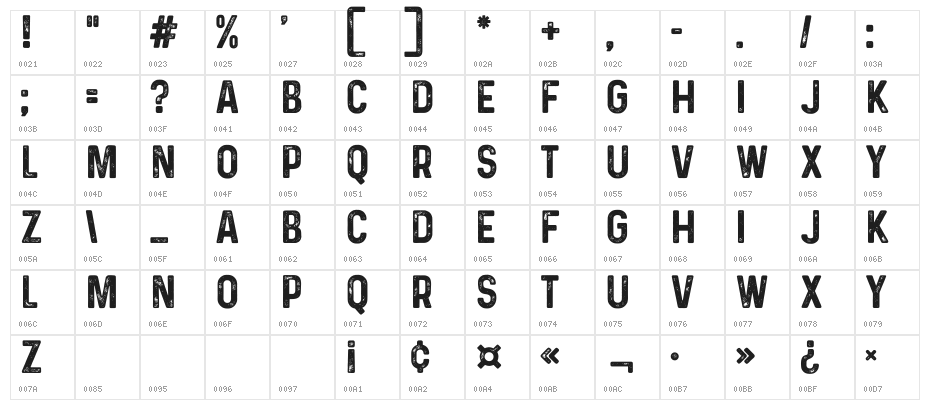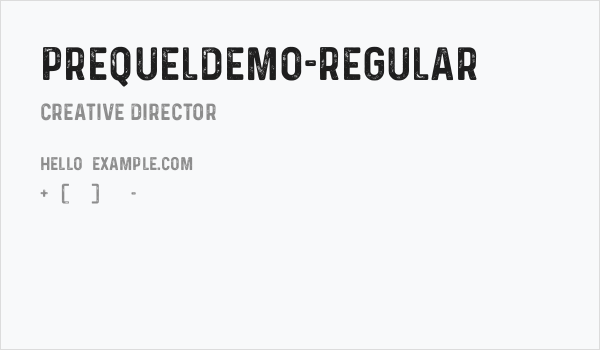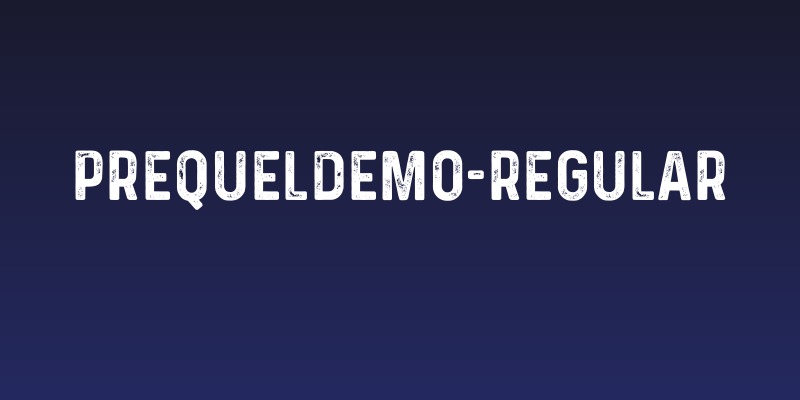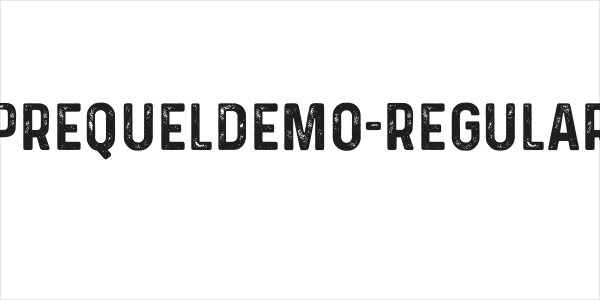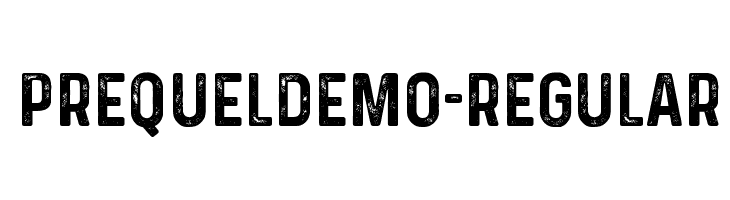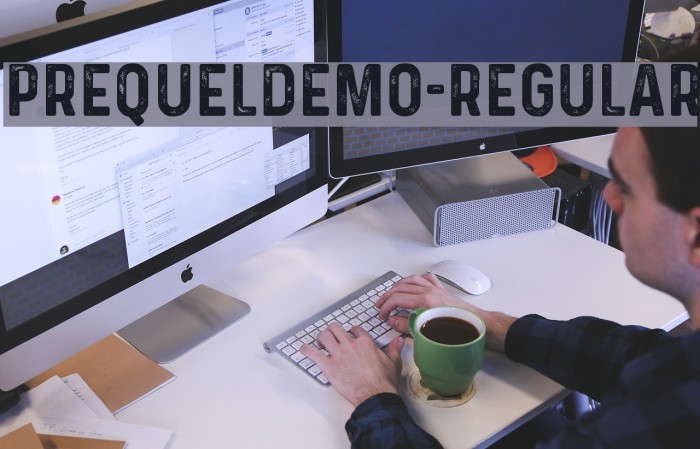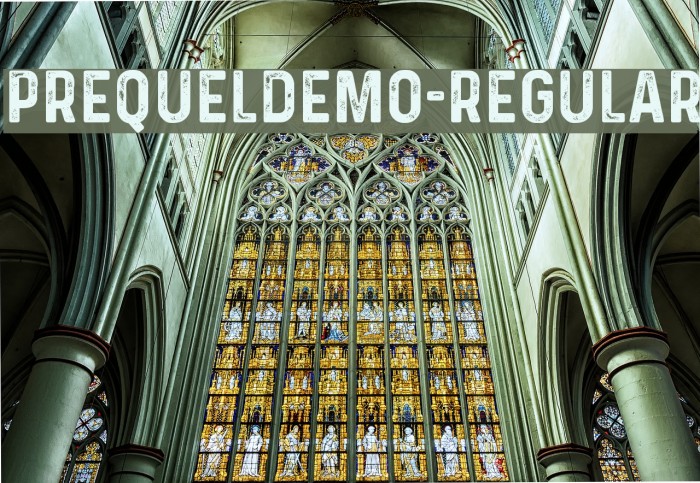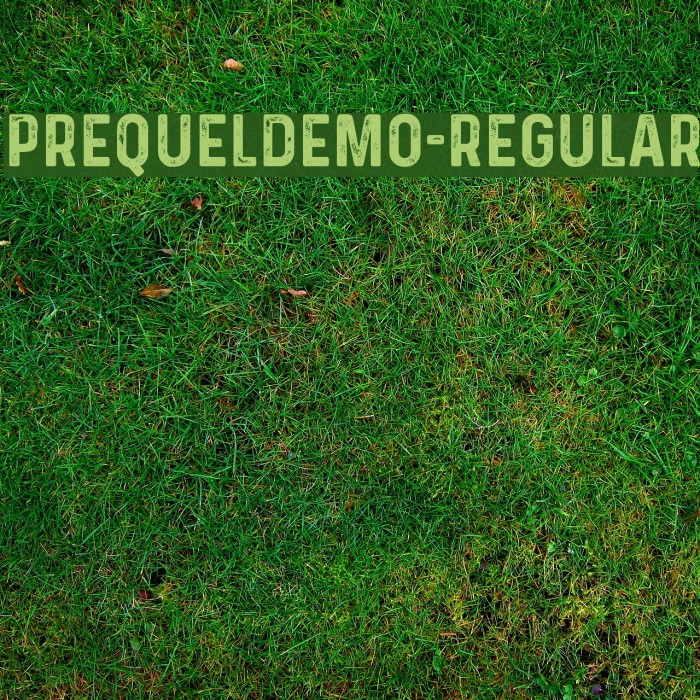
PrequelDemo-Regular Font
PrequelDemo-Regular Description
This font features a bold and distressed style, characterized by its textured appearance that gives it a rugged and vintage feel. The uppercase letters are prominent and impactful, making it ideal for creating attention-grabbing headlines. The characters have a uniform width, contributing to a balanced and cohesive look. The distressed texture adds a layer of depth and interest, making each letter appear unique while maintaining overall consistency. This font is perfect for projects that require a strong, bold statement with a touch of nostalgia and character.
| Overall Style | Vintage |
| Proposed Projects | Ideal for posters, album covers, branding materials, and any design requiring a bold, vintage aesthetic. |